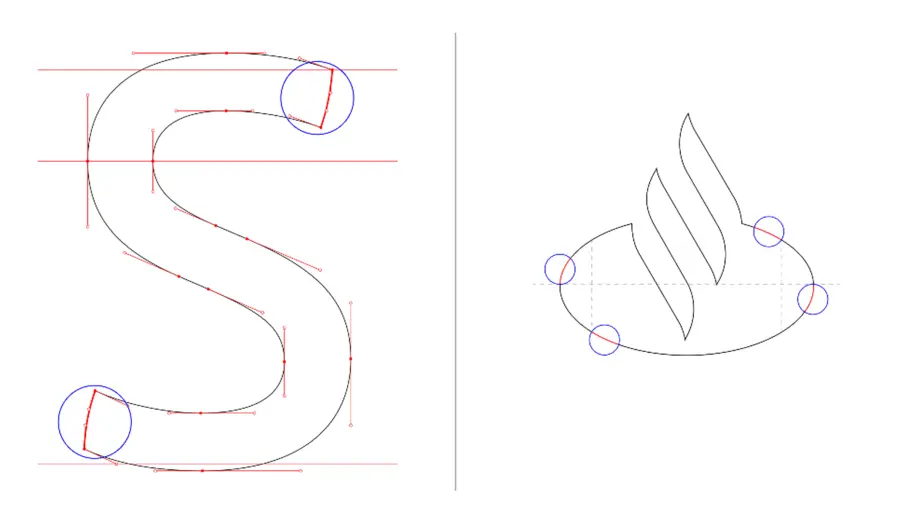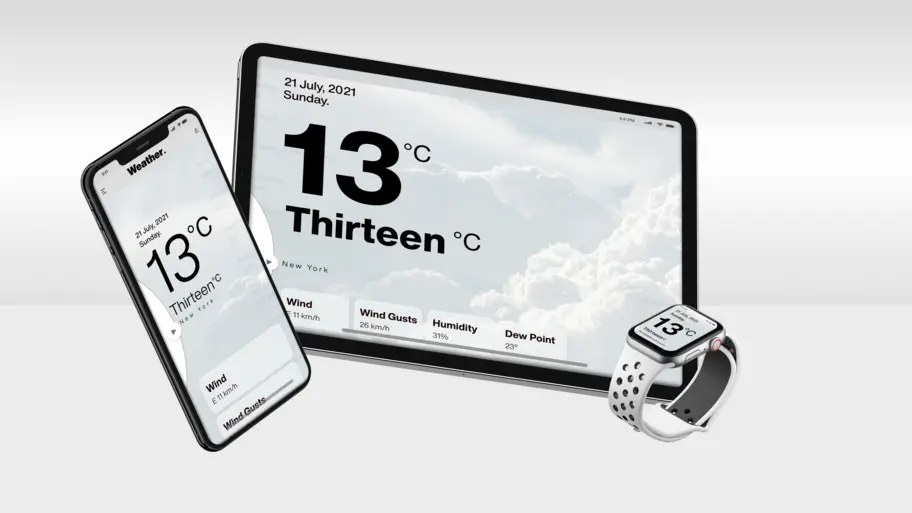
Trust. Security. Adaptability.
Monotype Solutions for Financial Services.
As the financial services sector grows into a more fully digital business, and expands to include a wide range of innovative products, your brand and visual identity are crucial to building strong, lasting customer relationships.
Touchless, but tangible.
The days of in-person banking are waning, and fast. While brick-and-mortar branches will likely always exist for specific set of services, most day-to-day banking is now handled digitally and, in most cases, on a mobile device.
This means your brand is no longer secondary to your customer experience. Your customer experience is your brand.
Your font strategy is essential to ensuring that this experience is a good one. A distinct, legible, welcoming typeface can be the difference between a brand customers love, and an experience customers want to avoid. And as the industry continues to evolve, a smart approach to fonts will enable you seamlessly evolve with it.
Santander Next - a custom font by Monotype Studio.
Trust is everything.
As more of our financial activity shifts toward digital touchpoints, so too does the attention of scammers. Our online lives are full of potential pitfalls that put the security of our privacy, data, and finances at risk, including phishing schemes, hackers, and copycat companies seeking to defraud your customers.
While most of the pushback against scams takes place in the world of IT, your brand can act as a line of first defense. Simply put, a visual identity built on generic assets such as system fonts or open-source fonts is easier for scammers to copy and replicate.
A distinct brand that uses unique fonts, such as a customized typeface, not only serves as deterrent from these scams but builds trust with your customers over time.
Fonts. Open to everyone.
Much like buildings need to be accessible to all, digital properties need to be adaptable to a wide range of users. The Americans with Disabilities Act include numerous provisions designed to ensure people with unique needs are able to read and interact with the content on the page.
Fonts play a huge role in delivering this degree of access, starting with the actual design of the letters. Some typefaces and typeface styles deliver better legibility, contrast, and scalability than others, and many typefaces do not meet the standards outlined by the ADA and similar guidelines in the UK and EU. On the technology side, it's essential to use web fonts for text so that screen readers can process and speak aloud the text for visually impaired users.
Helvetica Now Variable
Solutions for a changing world.